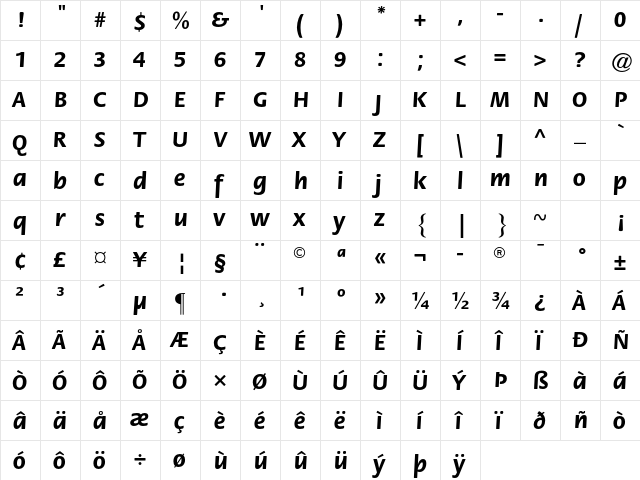
ITC Flora Std Bold
| Designer | Gerard Unger |
Design Context for ITC Flora Std Typeface
ITC Flora Std takes a measured approach to typography — its balanced proportions and neutral character make it a reliable workhorse for both digital and print work. Its bold stroke weight gives it real presence on the page.